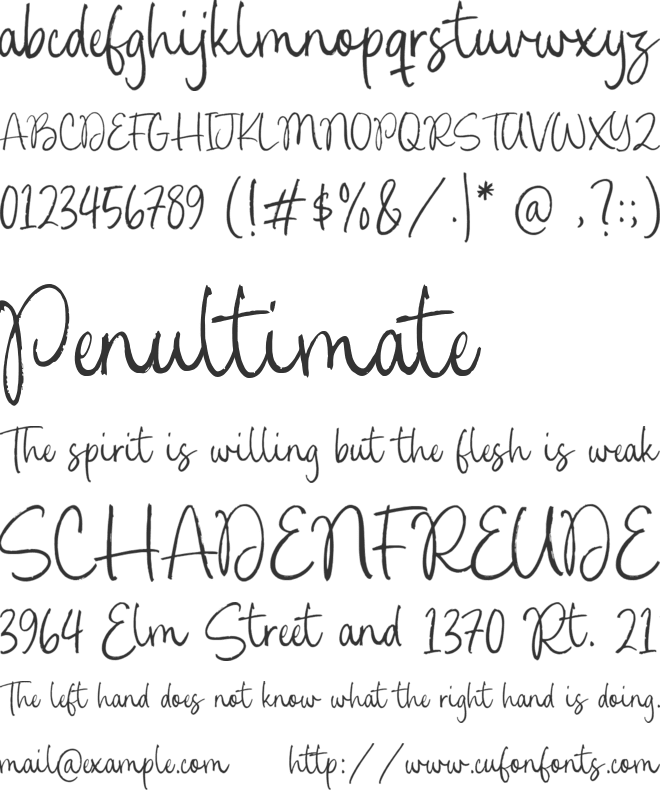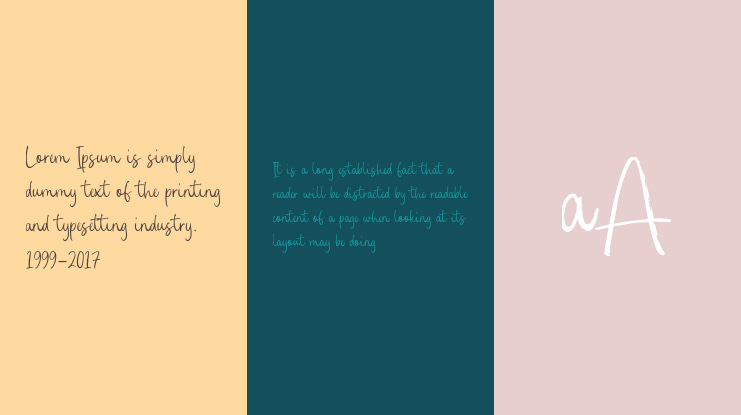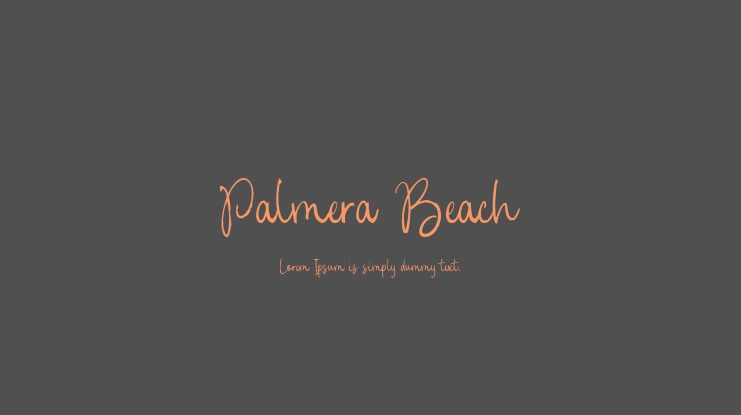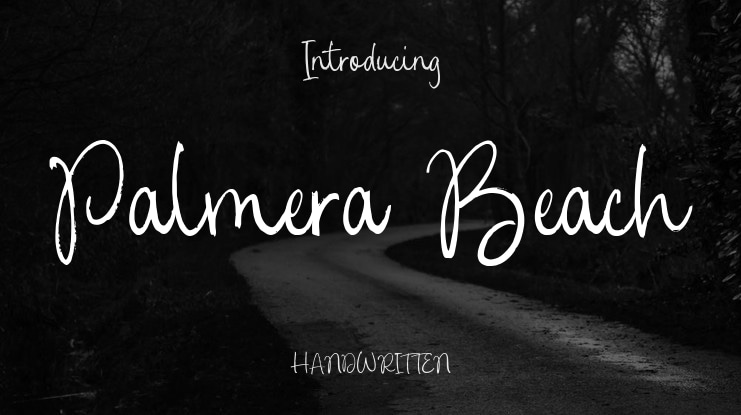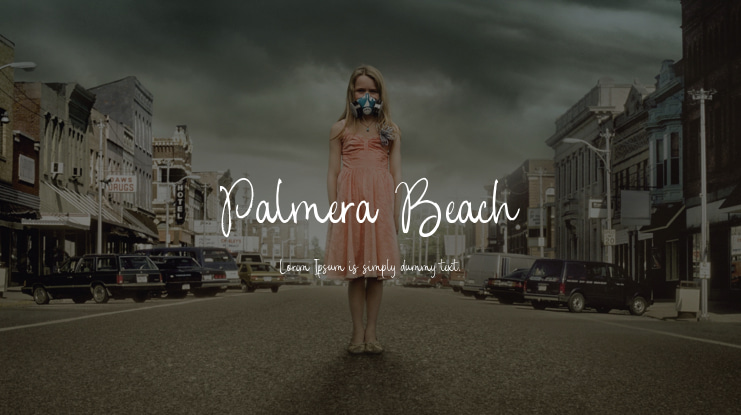
**Introducing Palmera Beach Font by Timurtype Studio!**
Palmera Beach is a vibrant handbrushed script font that exudes a relaxed, beachy vibe. With its fluid strokes and playful curves, it captures the essence of laid-back coastal living. Ideal for invitations, branding, and casual designs, Palmera Beach adds a touch of warmth to any project, making it perfect for summer events and tropical themes.
Palmera Beach Font also supports multiple languages.